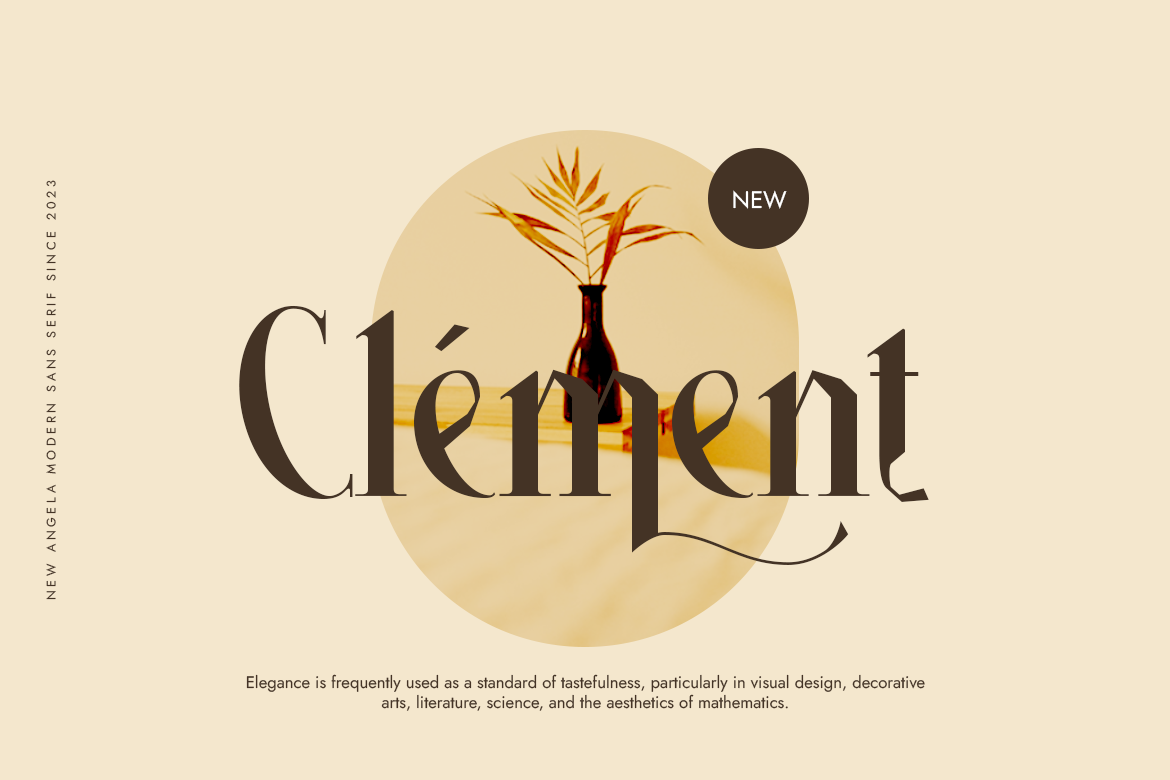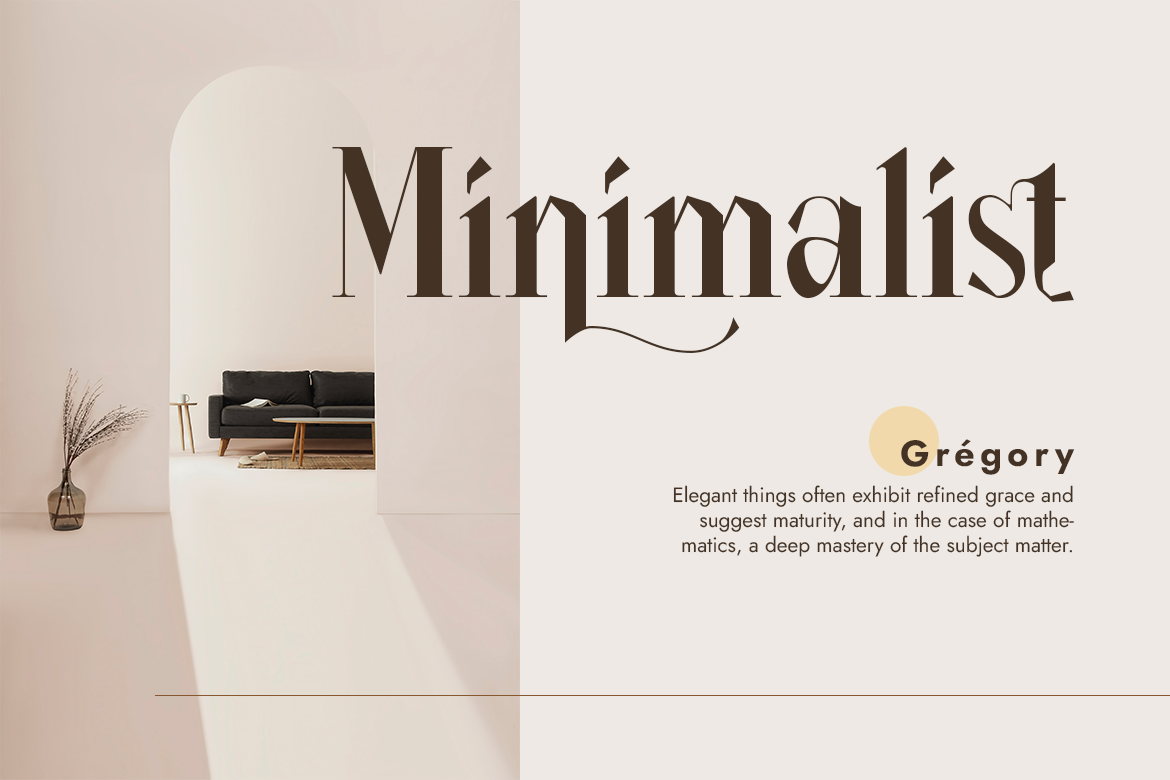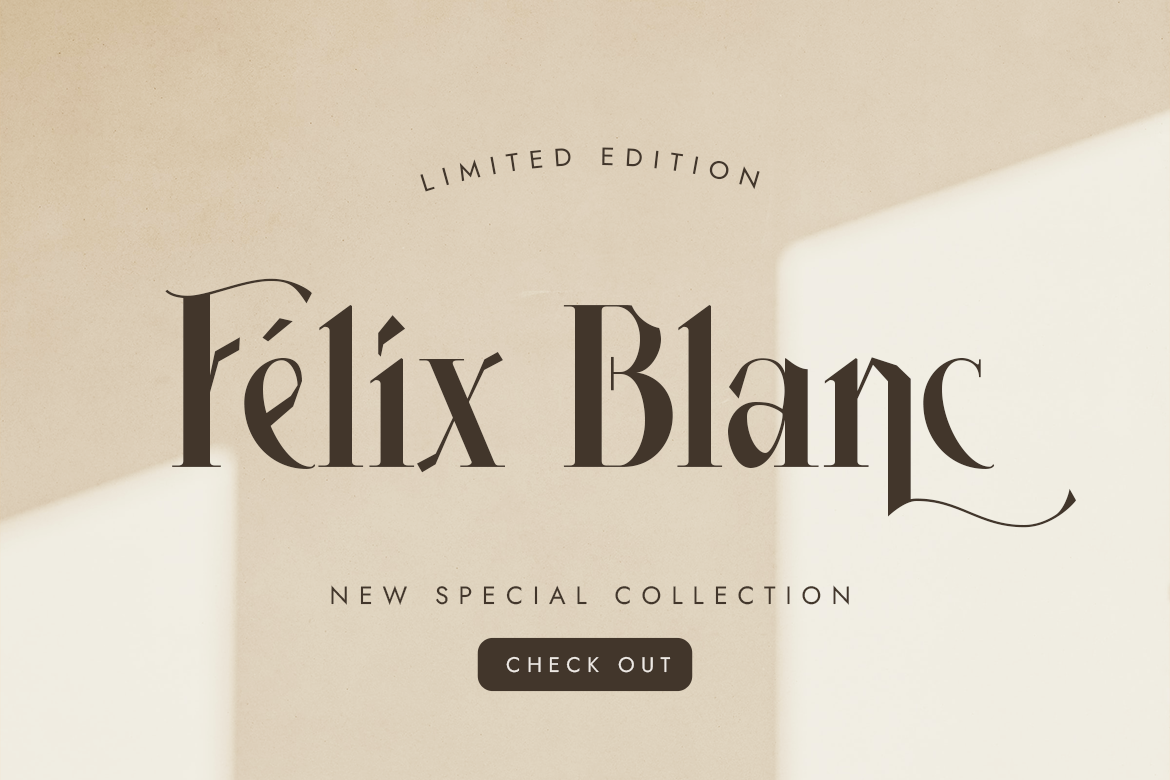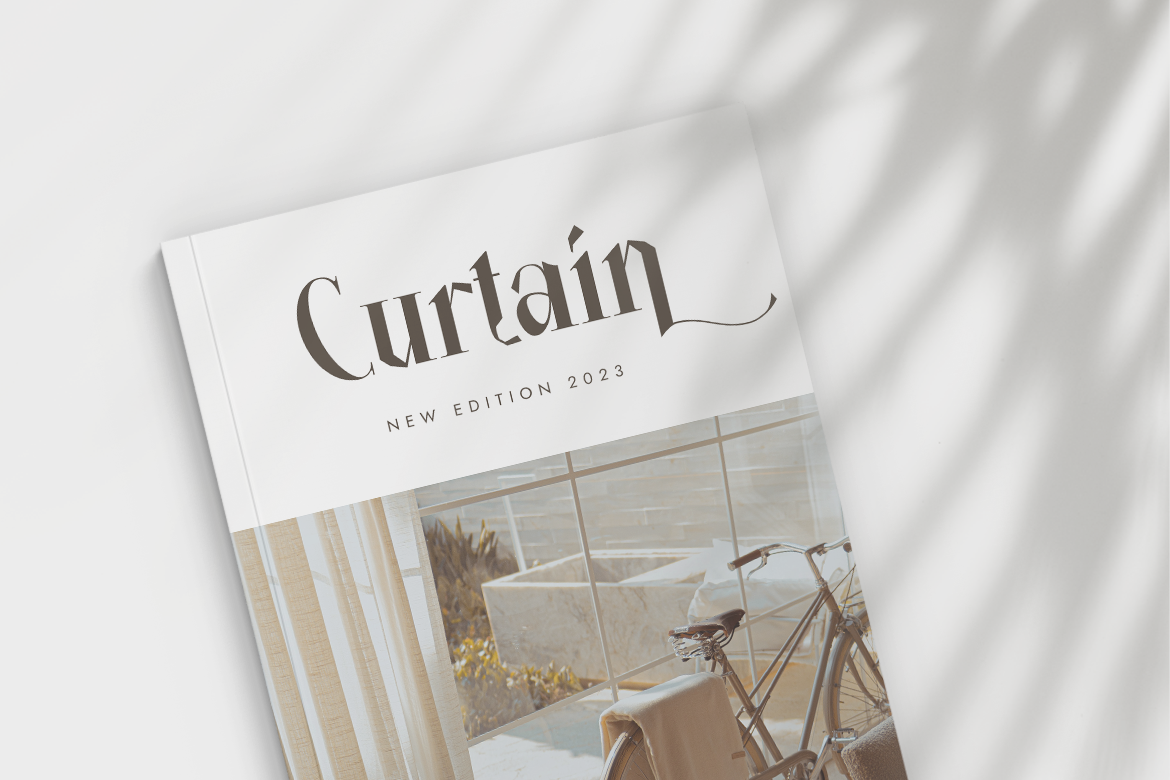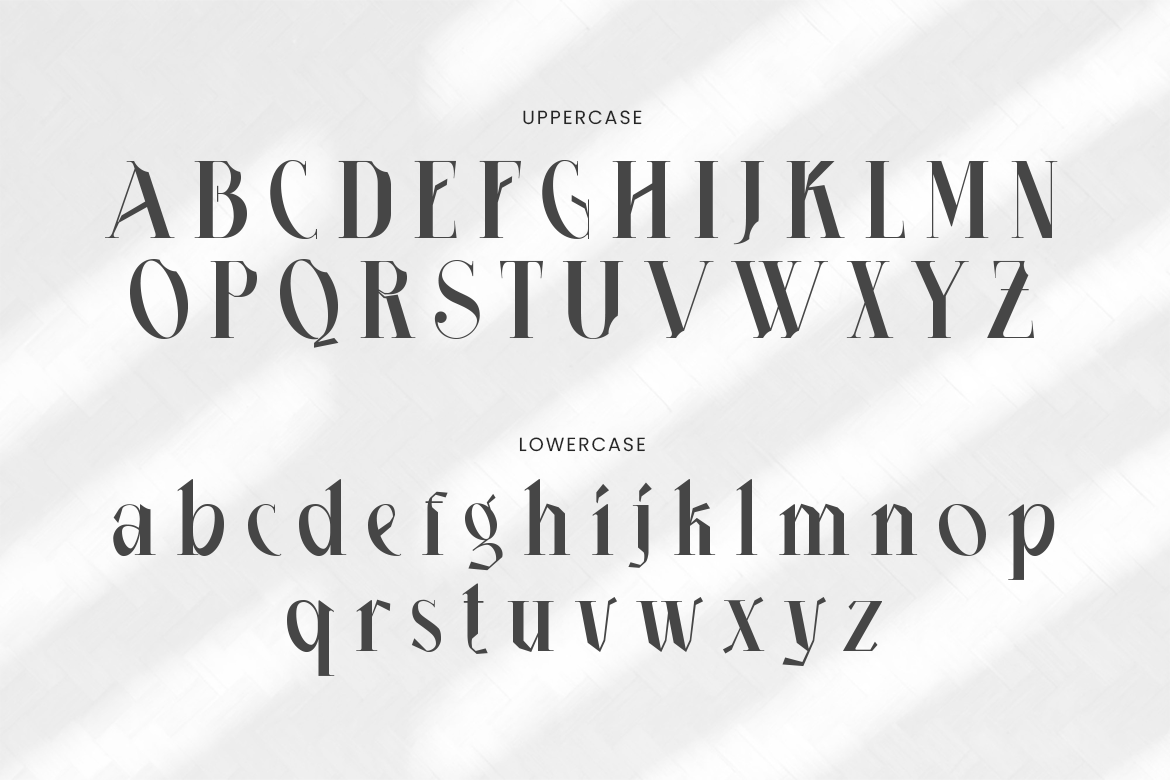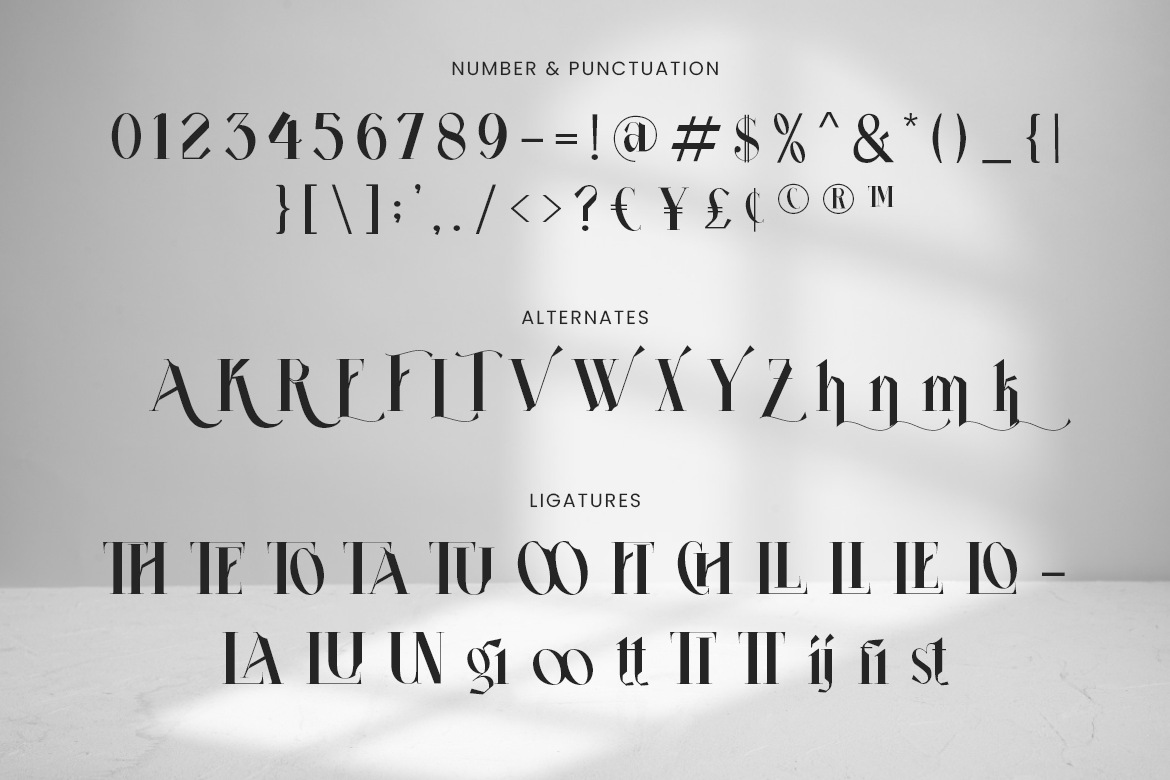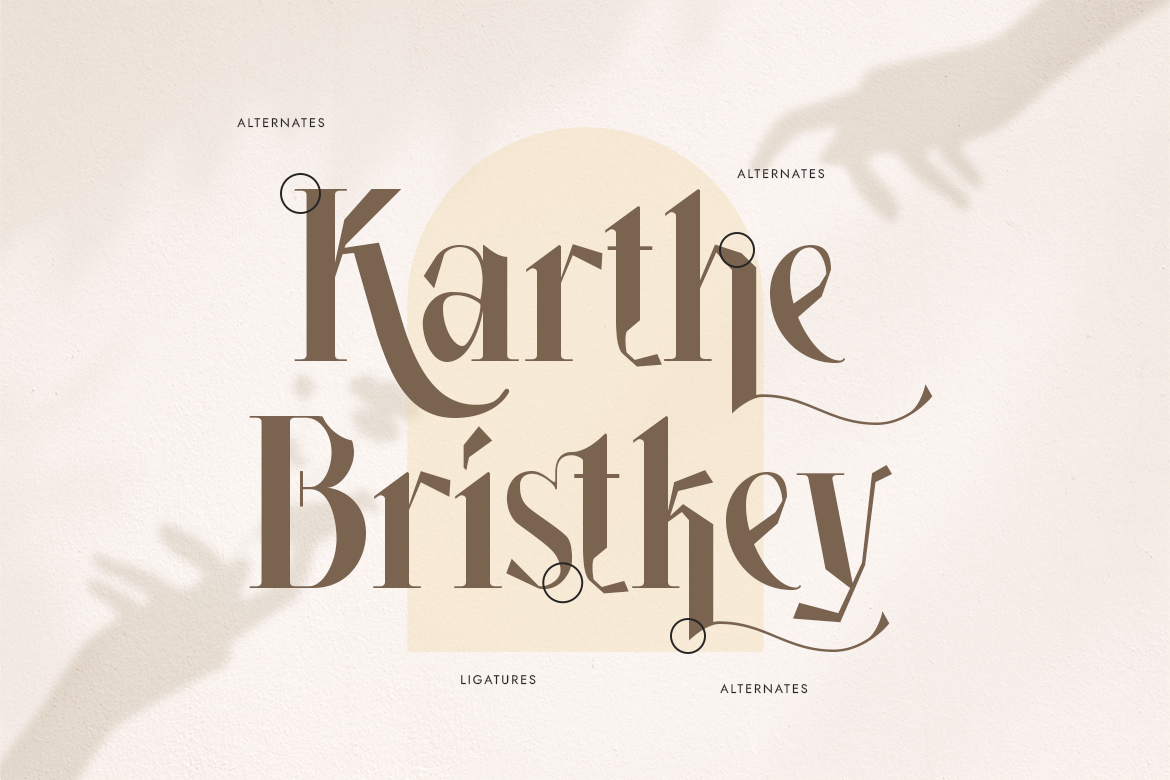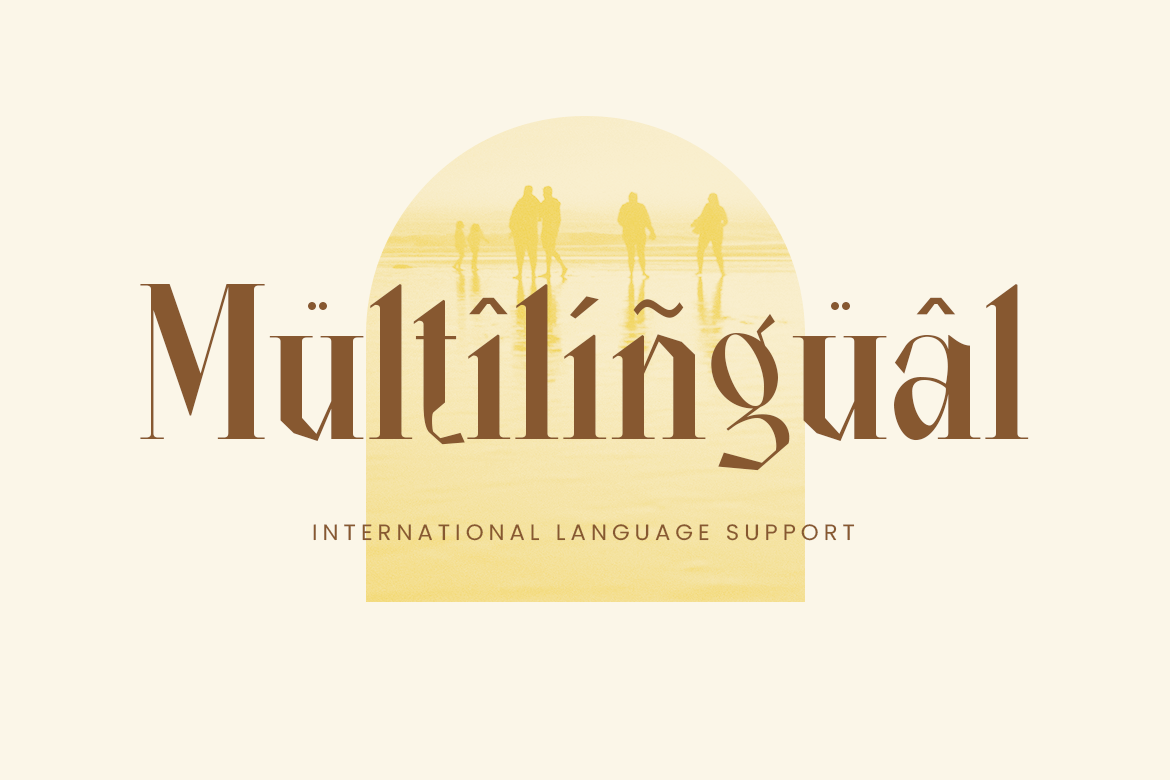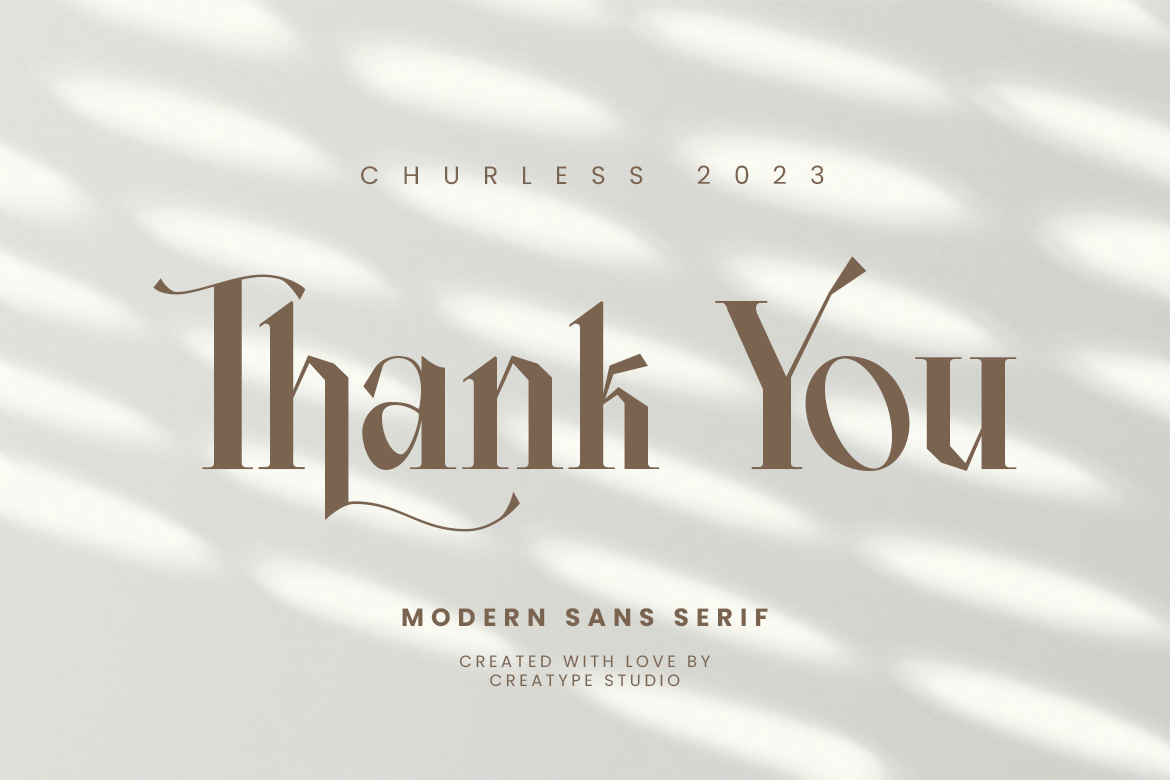
Churlees Modern Serif
The sleek lines and minimalistic design of Churlees the Modern Serif typeface, exude sophistication and elegance, making them the perfect choice for contemporary and eye-catching designs.
Churlees is perfect for branding projects, logos, wedding designs, social media posts, advertisements, product packaging, product designs, label, photography, watermark, invitation, stationery, and any projects that need handwriting taste.
- Fonts include multilingual support for; Afrikaans, Albanian, Czech, Danish, Dutch, English, Estonian, Finnish, French, German, Hungarian, Italian, Latvian, Lithuanian, Norwegian, Polish, Portuguese, Slovak, Slovenian, Spanish, Swedish.